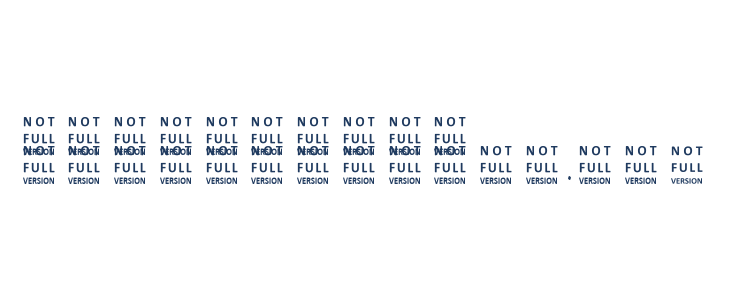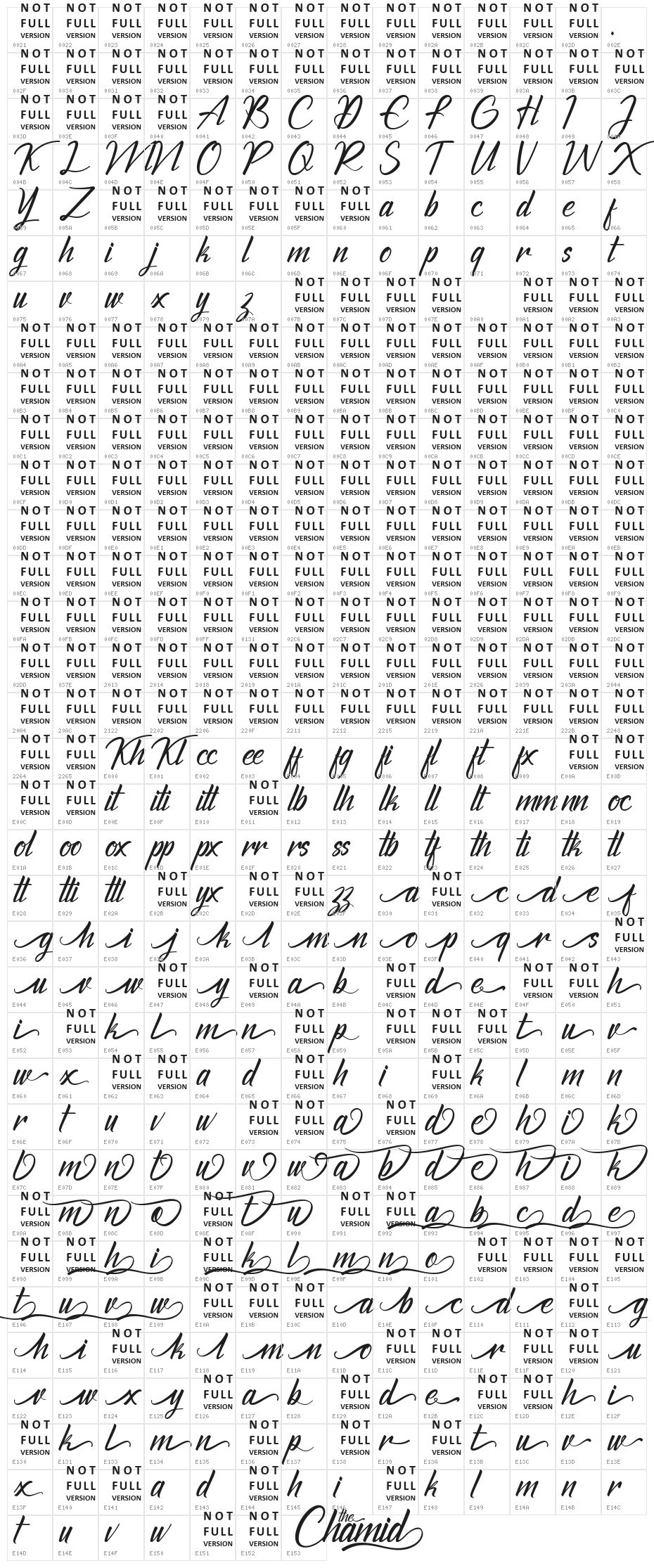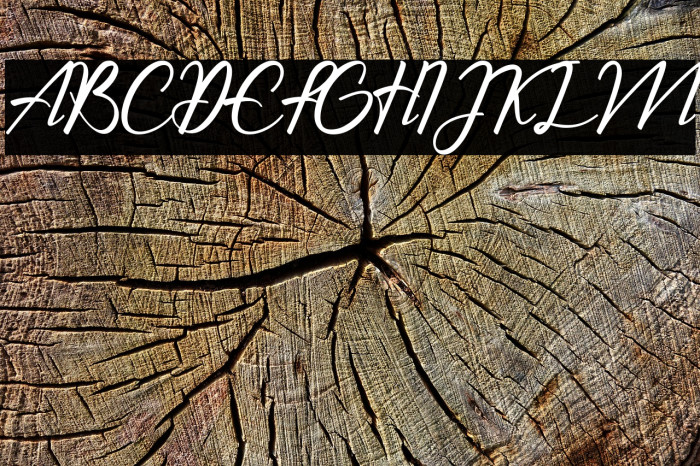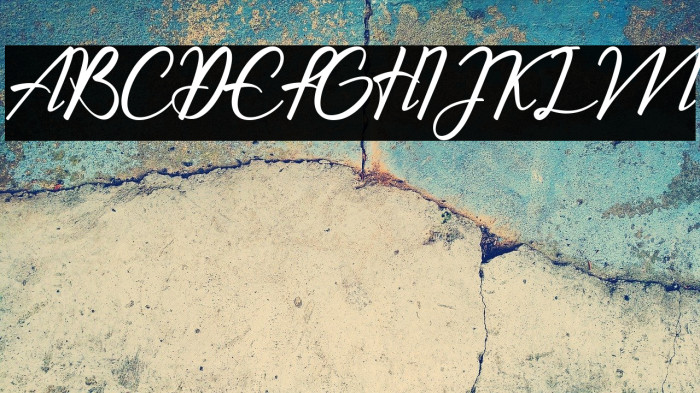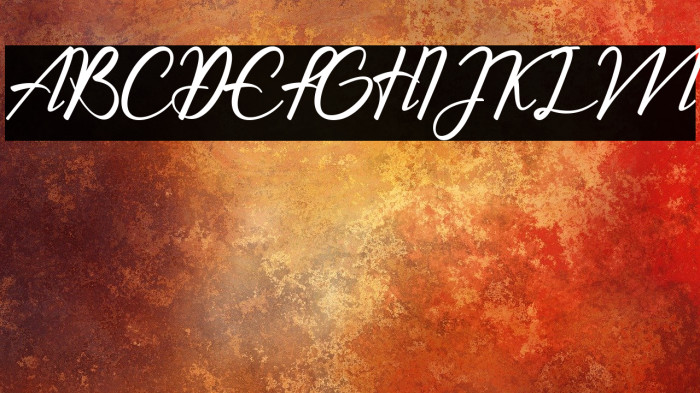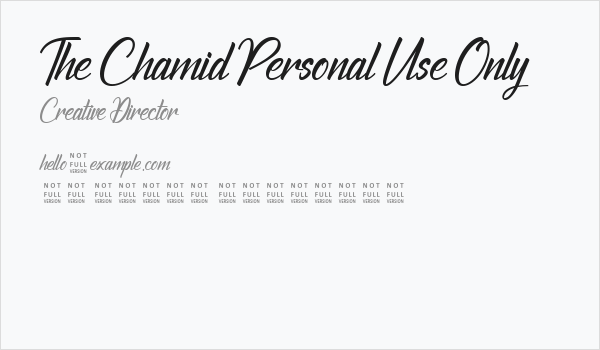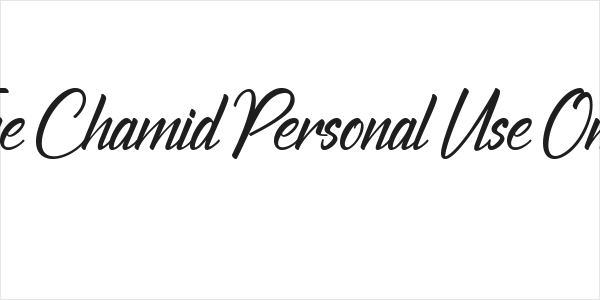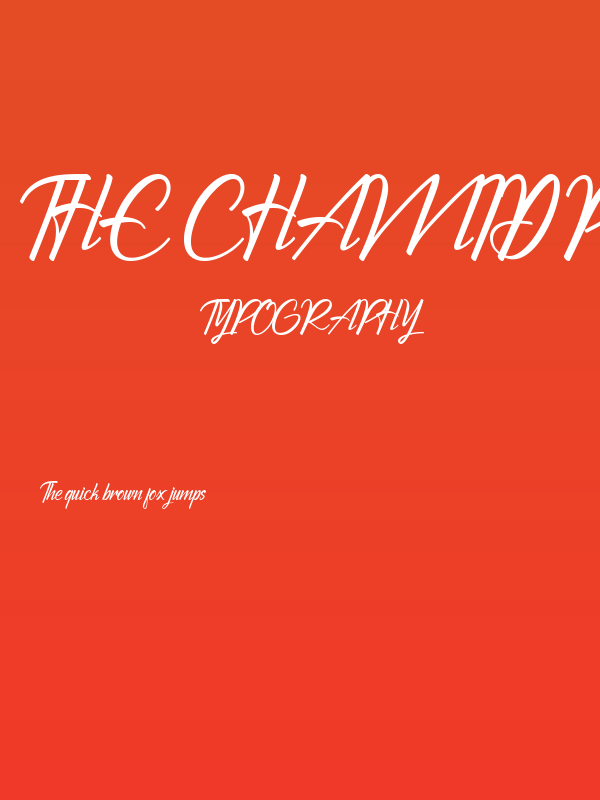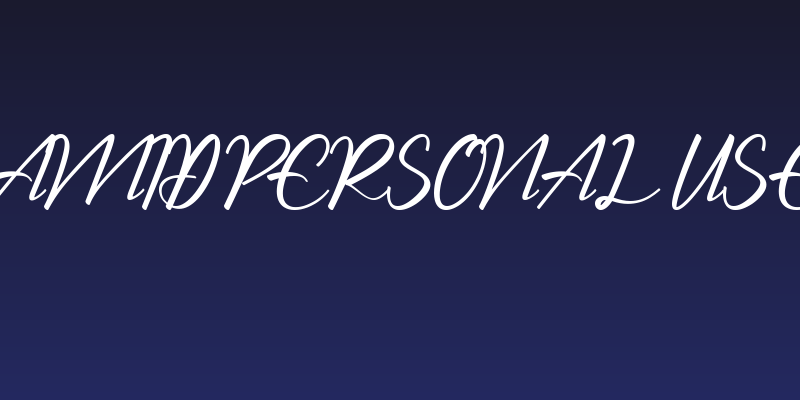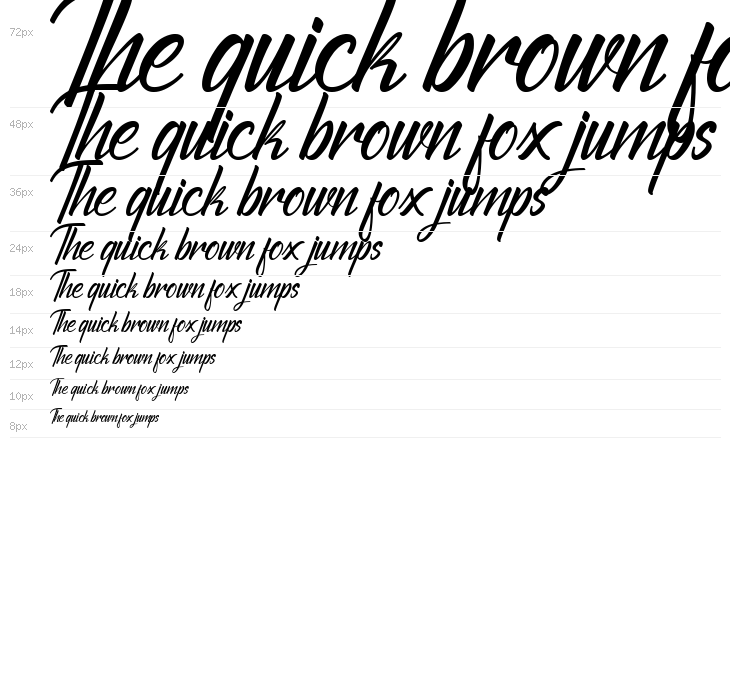
The Chamid Personal Use Only Font
The Chamid Personal Use Only Description
This font features a dynamic and flowing script style, characterized by its elegant and cursive letterforms. The uppercase letters exhibit a graceful, sweeping motion, while the lowercase letters maintain a consistent fluidity that enhances readability. The font's strokes are smooth and connected, giving it a cohesive and harmonious appearance. The overall design exudes a sense of sophistication and charm, making it suitable for a variety of creative applications. Its stylish and modern aesthetic is perfect for projects that require a touch of elegance and personality.
| Proposed Projects | Ideal for wedding invitations, branding, greeting cards, and social media graphics. |